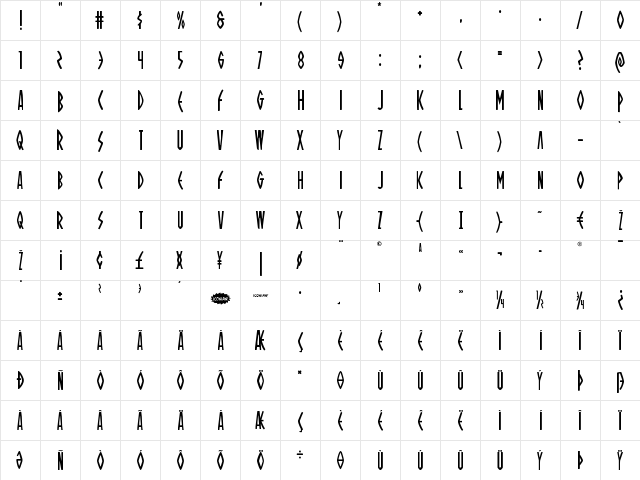
Oh Mighty Isis Condensed Condensed
Design Context for Oh Mighty Isis Condensed Typeface
Oh Mighty Isis Condensed is a composed and adaptable typeface that performs quietly and consistently across a wide range of design contexts. The condensed width makes it efficient for tight spaces without sacrificing legibility.